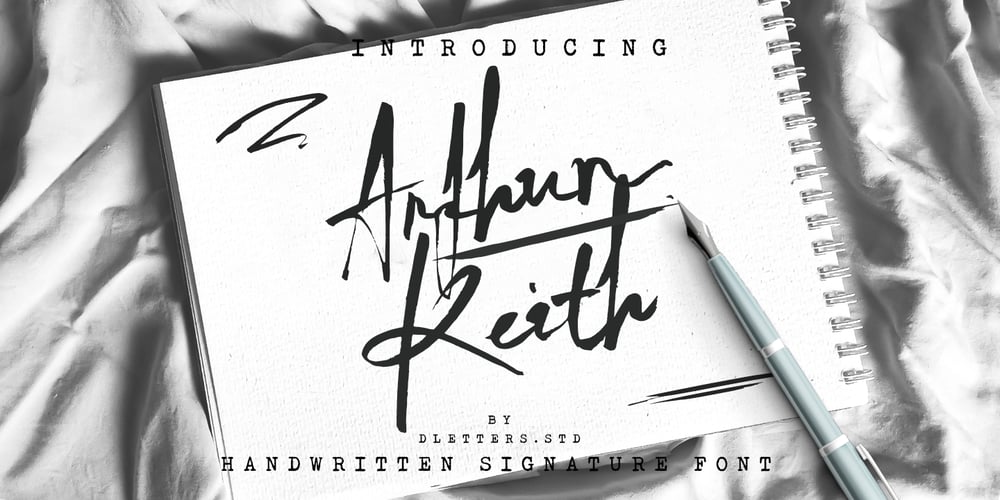
Arthur Keith Font Family was designed by Diosi Julianto and published by DLetters Studio. Arthur Keith contains 1 styles and family package options. Arthur Keith Signature Style Font Is A Great Font For any project! This font is made with an awesome taste and classy with natural touch, lots of ligatures, SAlt, and Swash. We keep this font looking Natural, easy to read, elegant, stylish, attractive and very easy to use.Arthur Keith Signature Style Font is a great choice for Projects you like branding, design, wedding, photography, signature, logo designs, album covers, business cards, quotes, and tons of projects other designs.What’s Included :– Arthur Keith (OTF/TTF/WOFF)– S-Alt, SS01, Ligature, and Swash– Works on Win, Mac– Simple installations– Accessible in Adobe Illustrator, Adobe Photoshop, Adobe InDesign, even work on Microsoft Word.– PUA Encoded Characters– Fully accessible without additional design software.Thanks for your support, please kindly send us a message for any question about our product.Hope you like it.